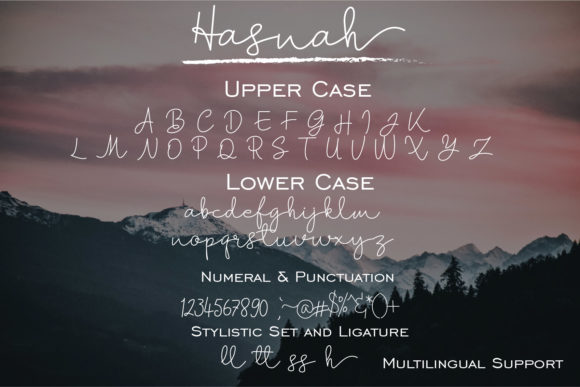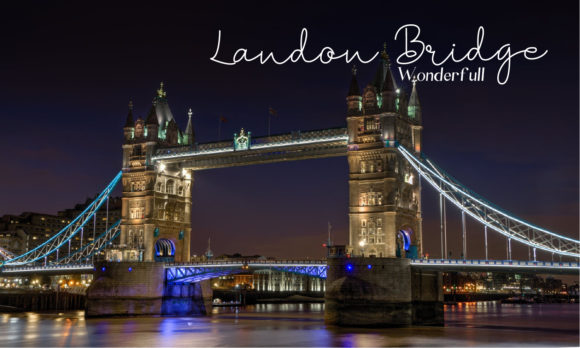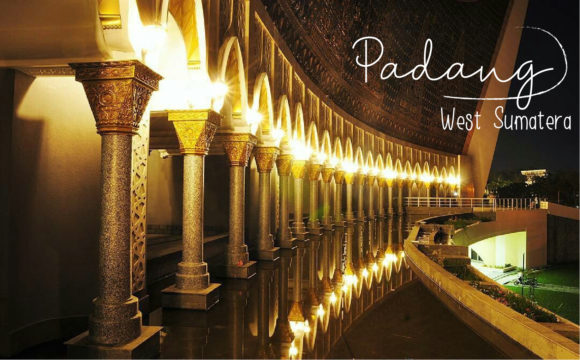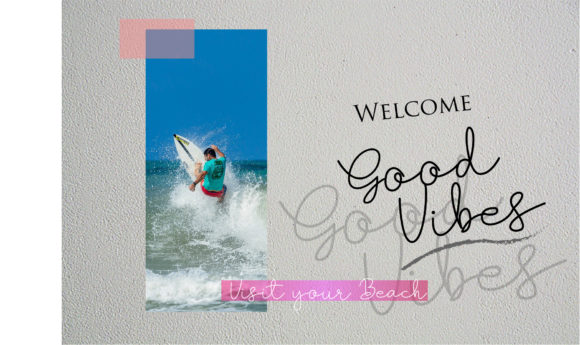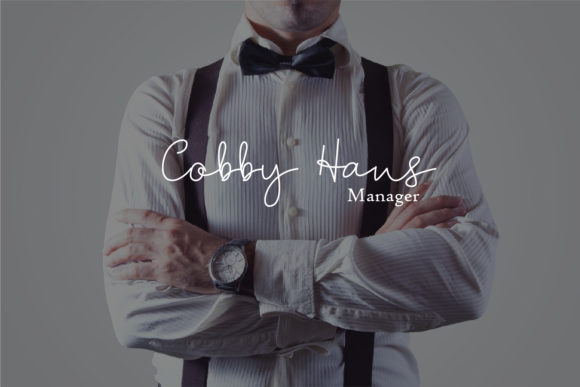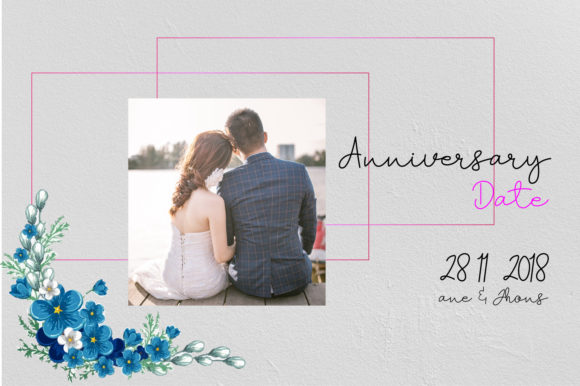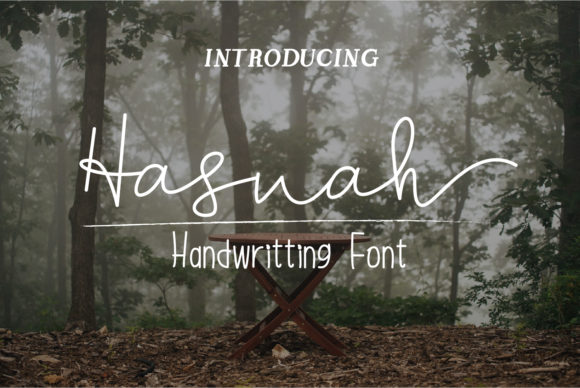
Introducing the Elegant Hasnah Font: Elevate Your Designs with Upscale Charm
The world of typography is vast and diverse, offering a multitude of fonts to suit various design needs. Among these, the Hasnah font stands out for its elegance and versatility. Dubbed an elegant script, Hasnah is perfect for designs that require an upscale and chic appearance. Whether you’re a seasoned designer or a crafty DIY enthusiast, understanding the nuances of the Hasnah font can significantly enhance your creative projects.
The Essence of Hasnah Font
The Hasnah font is characterized by its fluid, cursive strokes that exude sophistication and grace. Its elegant design makes it an ideal choice for projects that demand a touch of luxury and refinement. From wedding invitations and high-end brand logos to packaging and editorial content, Hasnah brings a level of class that can elevate any design from ordinary to extraordinary.
Key Features of Hasnah Font
- Elegant Cursive Strokes: The fluidity of Hasnah’s strokes gives it a dynamic and graceful appearance, making it perfect for designs that require movement and elegance.
- Versatility: Despite its specific elegant and upscale vibe, Hasnah can be adapted to various design contexts, from digital media to print.
- Readability: While script fonts can sometimes be challenging to read, especially in smaller sizes, Hasnah strikes a balance between style and legibility, making it suitable for both headlines and body text.
- Unique Character: Each letter in the Hasnah font is carefully crafted to contribute to the overall aesthetic of the text, providing a unique character that sets it apart from more generic fonts.
Applications of Hasnah Font
The applications of the Hasnah font are vast and varied. Here are some of the most popular uses:
- Wedding and Event Invitations: The elegance of Hasnah makes it a top choice for wedding invitations, save-the-date cards, and other event-related designs.
- Branding and Logos: For businesses that want to convey luxury, sophistication, and elegance, Hasnah can be a valuable asset in creating a brand identity.
- Packaging Design: Product packaging can benefit from Hasnah’s upscale look, especially for high-end or luxury goods.
- Editorial and Digital Content: For blogs, magazines, and digital platforms aiming for a sophisticated look, Hasnah can add a touch of elegance to article titles, headings, and even body text.
Tips for Using Hasnah Font Effectively
To maximize the impact of the Hasnah font in your designs, consider the following tips:
- Pair with Complementary Fonts: Combine Hasnah with simpler, sans-serif fonts for body text to create contrast and visual interest.
- Adjust Size and Color: Use size and color variations of Hasnah to create a hierarchy of information and draw attention to key elements.
- Consider Line Spacing: For better readability, especially in longer texts, ensure adequate line spacing when using Hasnah.
| Font Name | Hasnah Font |
| Author | Lettercorner Studio |
The Hasnah font offers designers and crafters a versatile and elegant tool for creating upscale and chic designs. Its unique blend of sophistication, readability, and style makes it suitable for a wide range of applications, from luxury branding and event invitations to editorial content and packaging. By understanding its features and applications, and by using it thoughtfully in your designs, you can elevate your projects to new heights of elegance and professionalism.
Whether you’re looking to make a statement with a luxury brand identity or simply want to add a touch of elegance to your DIY projects, the Hasnah font is an excellent choice. Its ability to convey sophistication and refinement through its fluid strokes and graceful appearance makes it a valuable asset in the world of design.